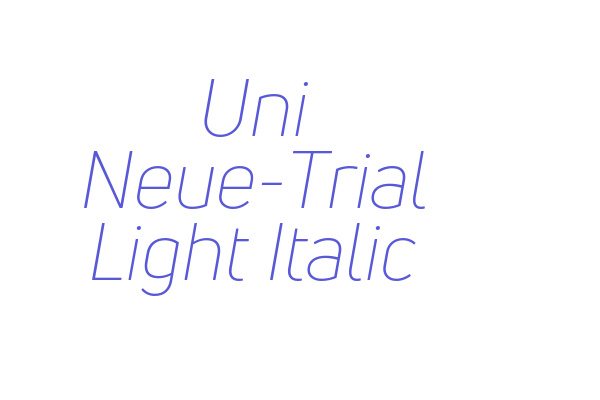
Uni Neue-Trial Light Italic is a sleek and modern sans serif font designed by Svet Simov and Plamen Motev. With its light italic style, this font exudes elegance and sophistication, making it perfect for use in minimalist designs, editorial layouts, and branding projects. Its clean lines and contemporary feel make it a versatile choice for a wide range of design applications.
Font Name: Uni Neue-Trial Light Italic
Designer: Svet Simov, Plamen Motev
Font Family: Uni Neue-Trial